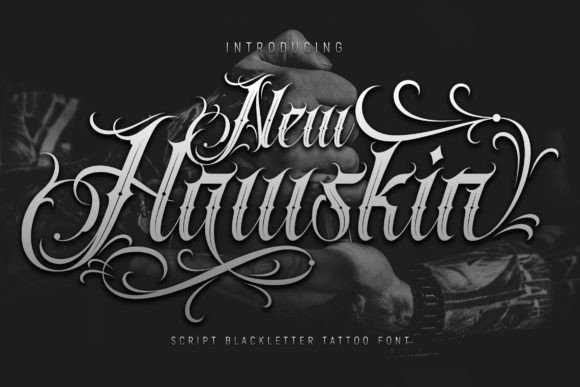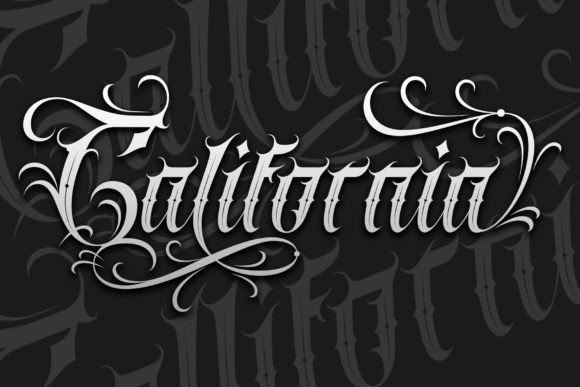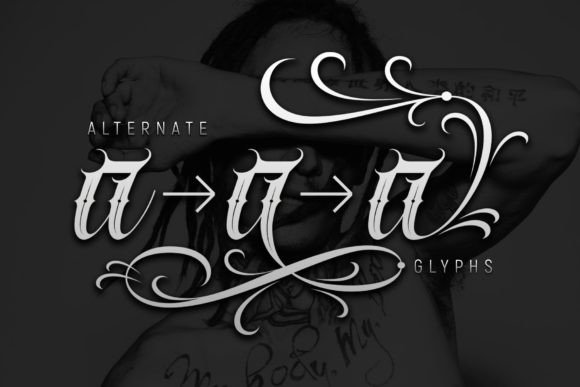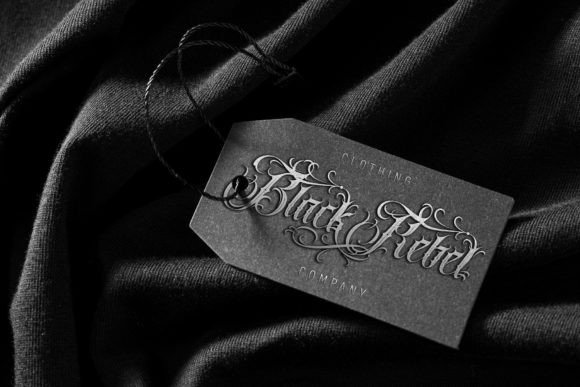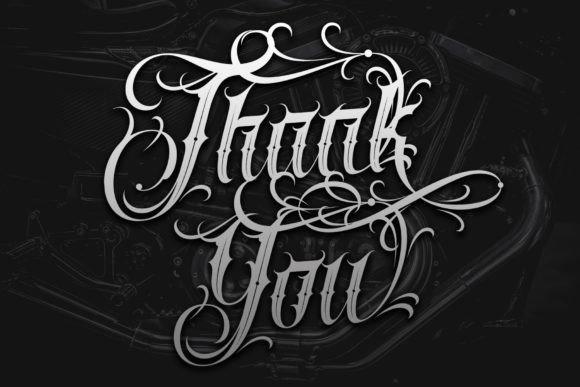
New Hawskin Font
New Hawskin is a contemporary blackletter tattoo font that feels right at home on logos, t-shirt designs, posters, flyers, and other brand identity material. It’s an excellent typeface to integrate your artwork with. This font design has a great design that’s perfect for all kinds of design work from digital designs, greeting cards, and even T-Shirt designs as well.